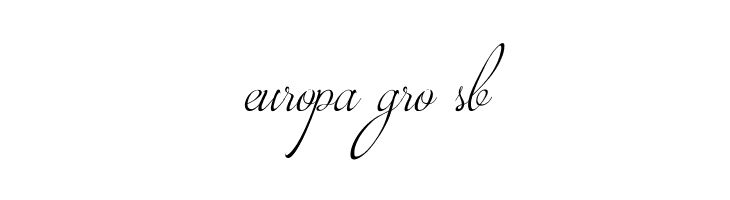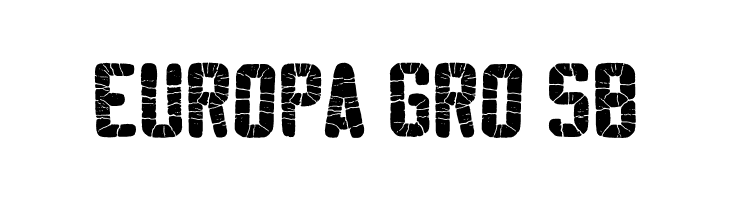
Blacksword Font
A sophisticated, cursive font with elegant, flowing lines.
RoadRage Font
A bold, jagged font with a graffiti-like, energetic style.
SablonUp-College Font
A bold, collegiate-style font with a strong, outlined presence.
SablonUp-Regular Font
Darleston Font
An elegant script font with graceful curves and decorative flourishes.
Brotherhood Script Font
An elegant script font with flowing, interconnected letters and a classic calligraphic style.
AntroVectra-Bolder Font
A fluid and elegant script font with a handwritten appearance.
Dulcelin Font
A playful and elegant script font with smooth, flowing lines and connected letters.
InfiniteStroke Font
A cursive, handwritten font with elegant, flowing strokes.
MiltonTwoBold Font
An elegant script font with flowing, cursive letterforms and intricate flourishes.
Hughs Font
A modern, flowing script font with dynamic and elegant characteristics.
InfiniteStroke-Bolder Font
A bold, elegant script font with fluid, continuous strokes.
AntroVectra Font
A fluid, cursive script font with elegant, natural handwriting style.
Streamster Font
A dynamic script font with fluid, angular strokes and high contrast.
MiltonOneBold Font
An elegant script font with flowing, cursive letterforms and ornate flourishes.
DistantStroke-Medium Font
An elegant, high-contrast script font with a flowing, cursive style.
InfiniteStroke-CondensedBolder Font
A bold, condensed script font with high contrast and elegant flourishes.
InfiniteStroke-Condensed Font
A cursive, flowing script font with elegant, interconnected strokes.
Javacom Font
A fluid, cursive script font with a natural handwritten style.
MiltonTwo Font